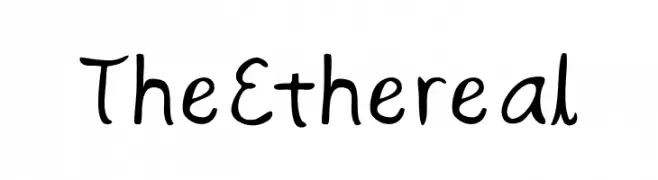
A bold, playful handwritten font with rounded, consistent strokes.
( Fonts by Guillem Castro )
A playful, handwritten font with tall, narrow letters and a casual style.
( Fonts by Peter Olexa )
An elegant, cursive font with decorative loops and swirls.
A fluid, handwritten script font with a personal and informal style.